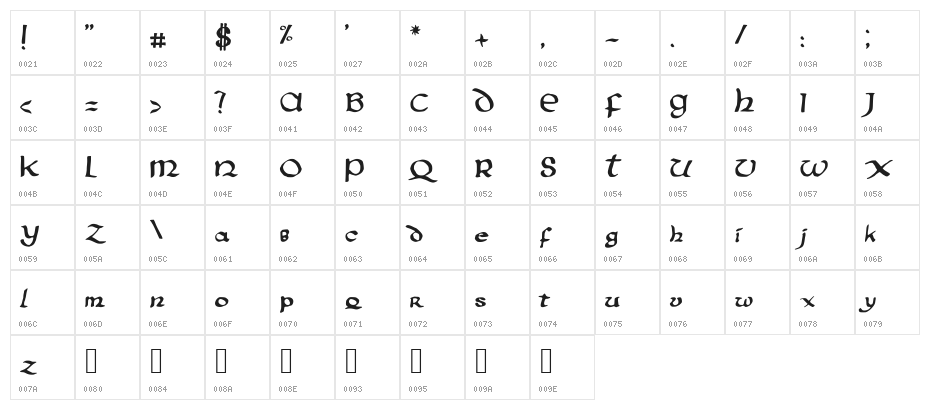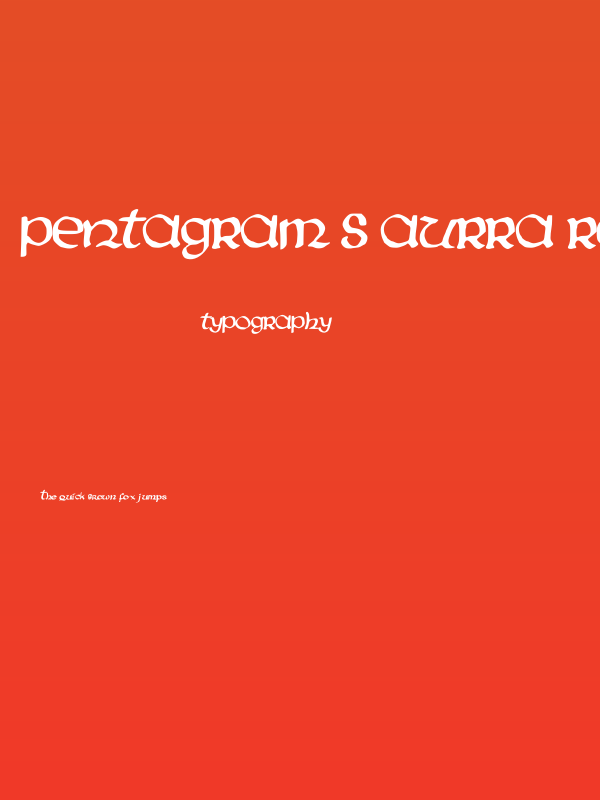
PentaGram s Aurra Regular Font
PentaGram s Aurra Regular Description
This font features a distinctive, artistic style reminiscent of medieval calligraphy. The characters are bold and slightly elongated, with sharp, angular edges that give them a dramatic flair. The uppercase letters are particularly striking, with intricate curves and pointed serifs that evoke a sense of historical elegance. The lowercase letters maintain a consistent style, with a slightly more fluid form that complements the uppercase. The numbers and special characters are crafted with the same attention to detail, ensuring a cohesive appearance across all glyphs. This font's unique design makes it suitable for projects that require a touch of old-world charm and sophistication.
| Use Case | Headlines, Logos, Decorative text |
| Proposed Projects | Ideal for fantasy-themed designs, historical event posters, book covers, and decorative invitations. |